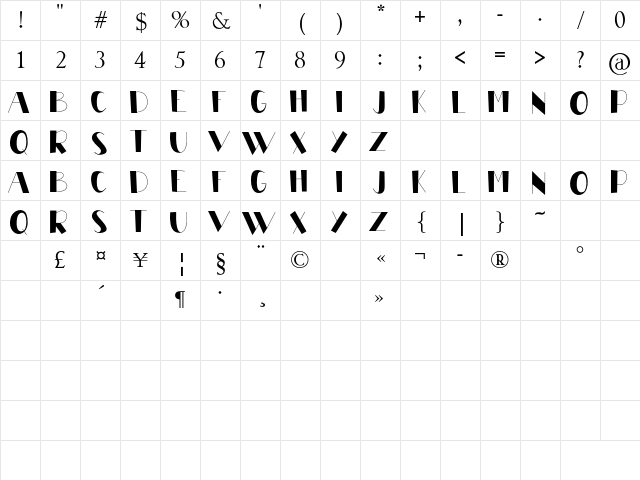
BABY CUTE Regular Free Font
BABY CUTE Regular
Designer: Donis Miftahudin
Design Context for BABY CUTE
BABY CUTE is a composed and adaptable typeface that performs quietly and consistently across a wide range of design contexts.